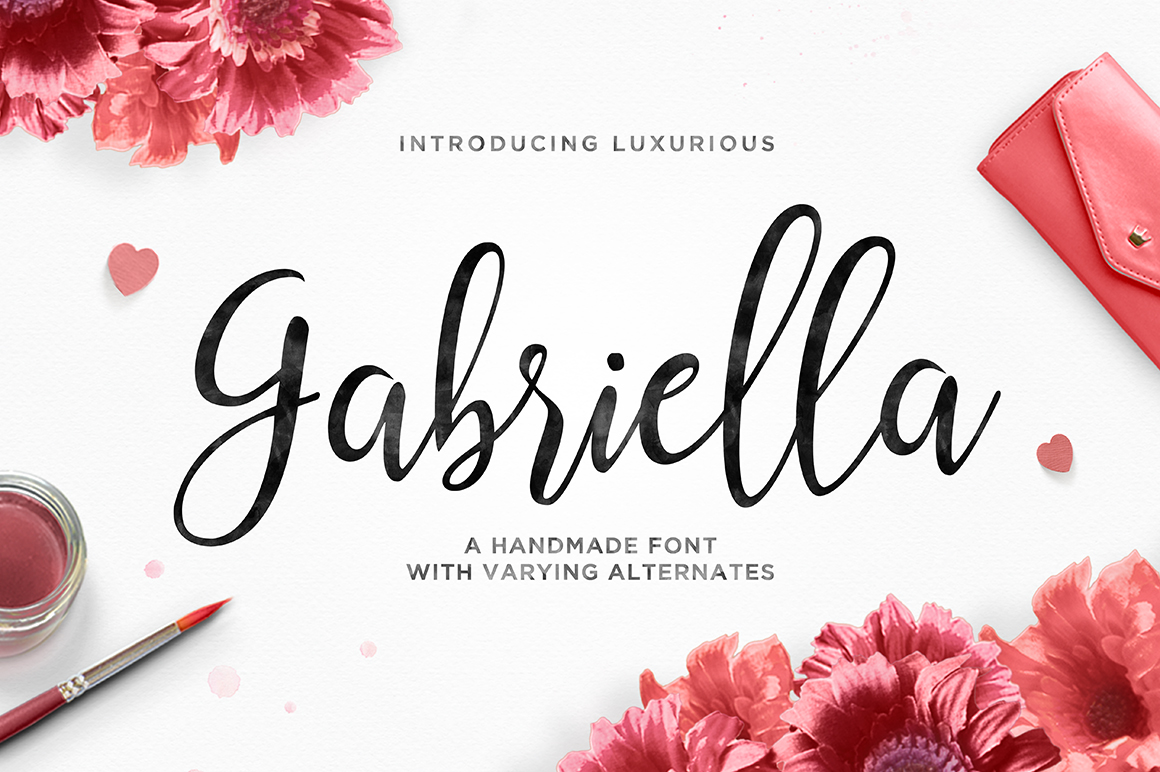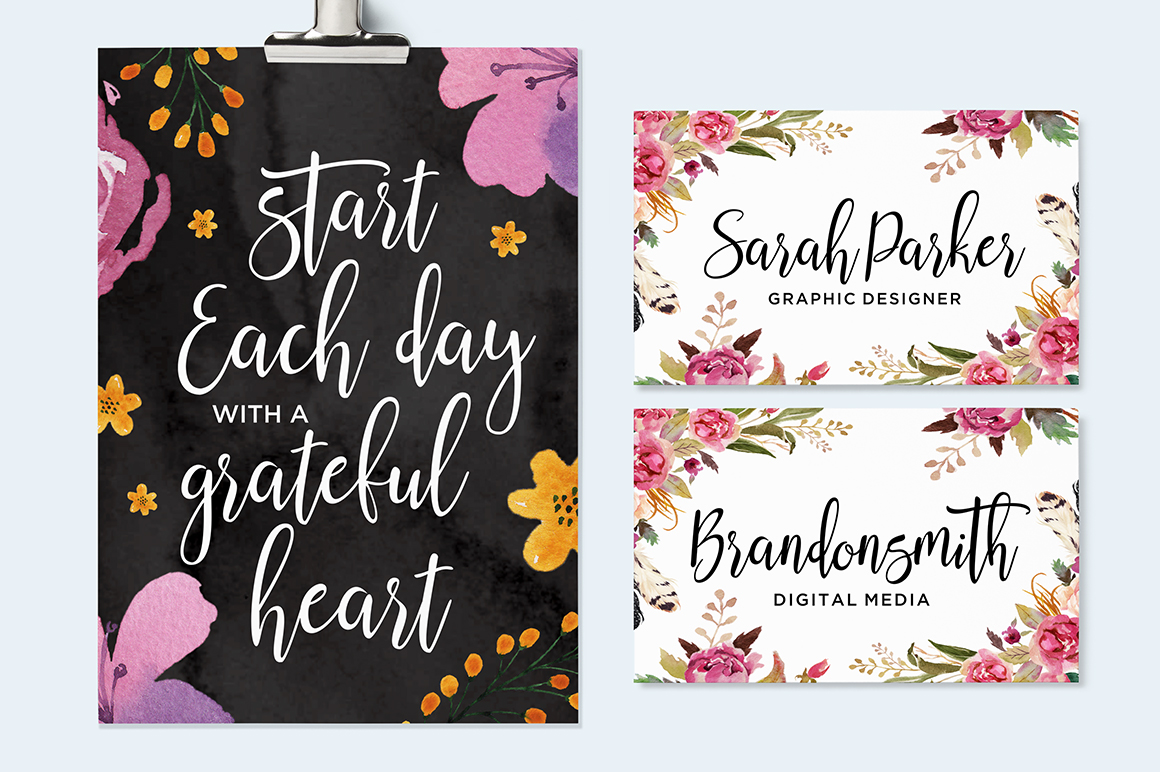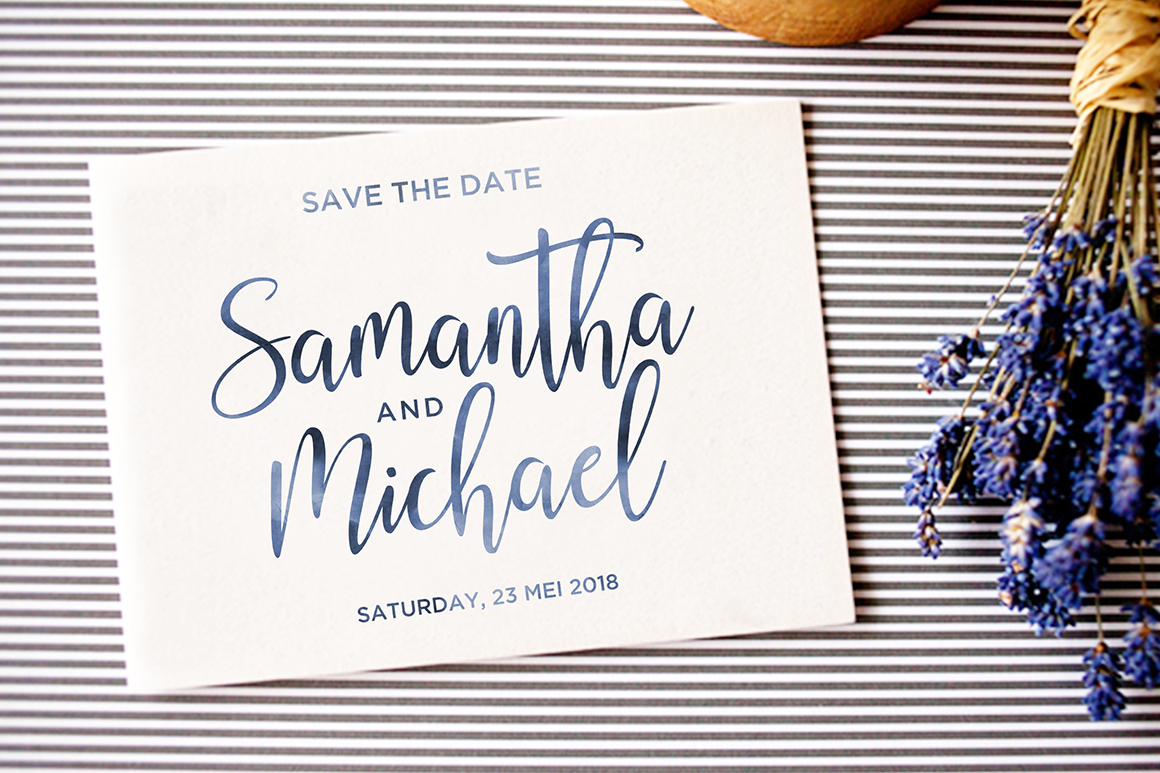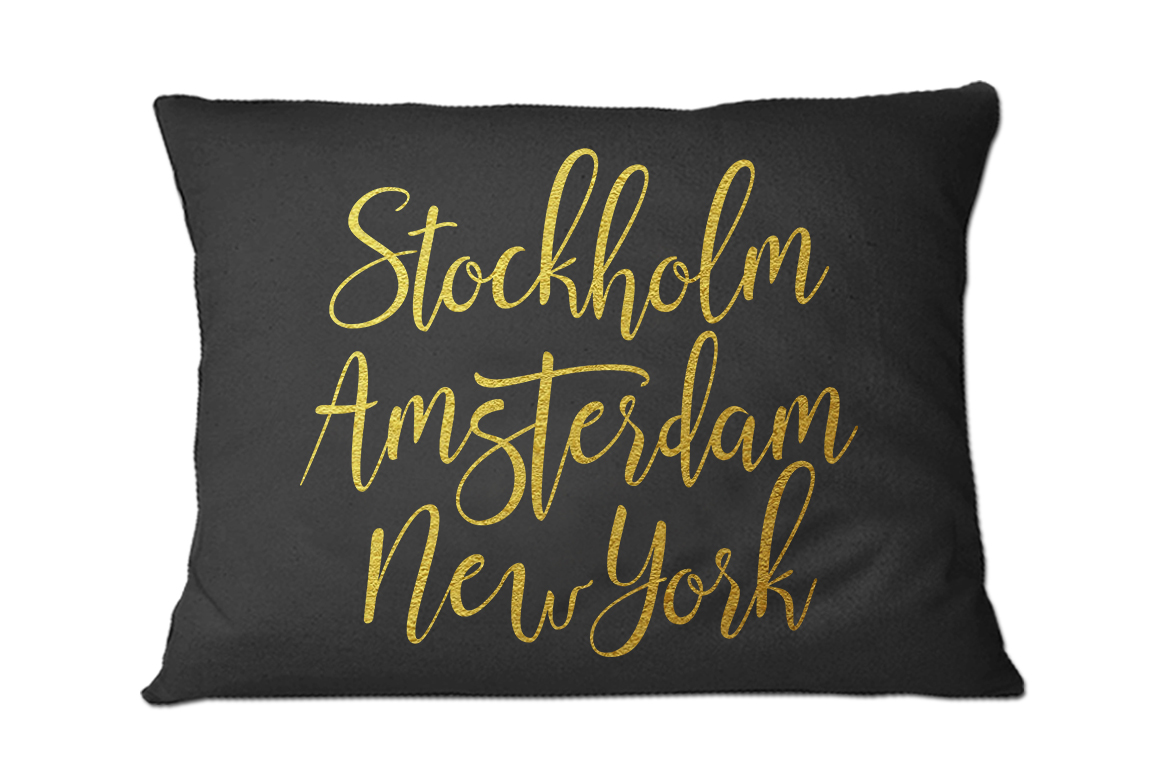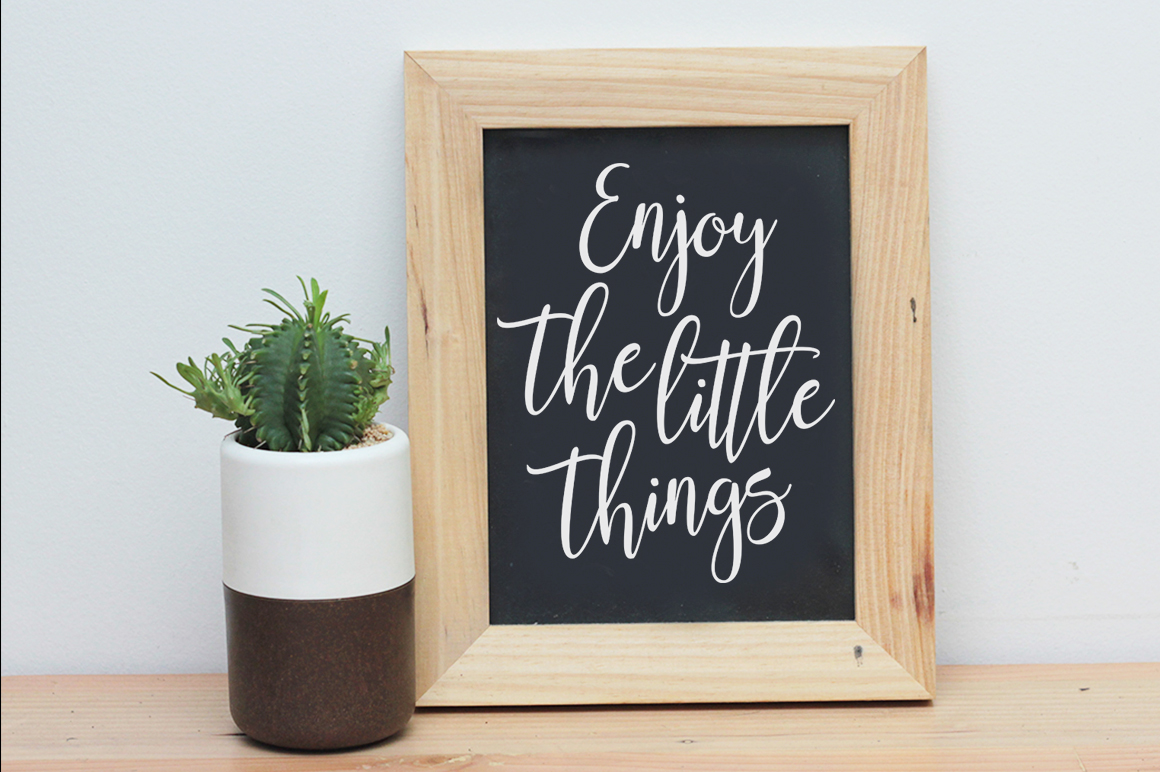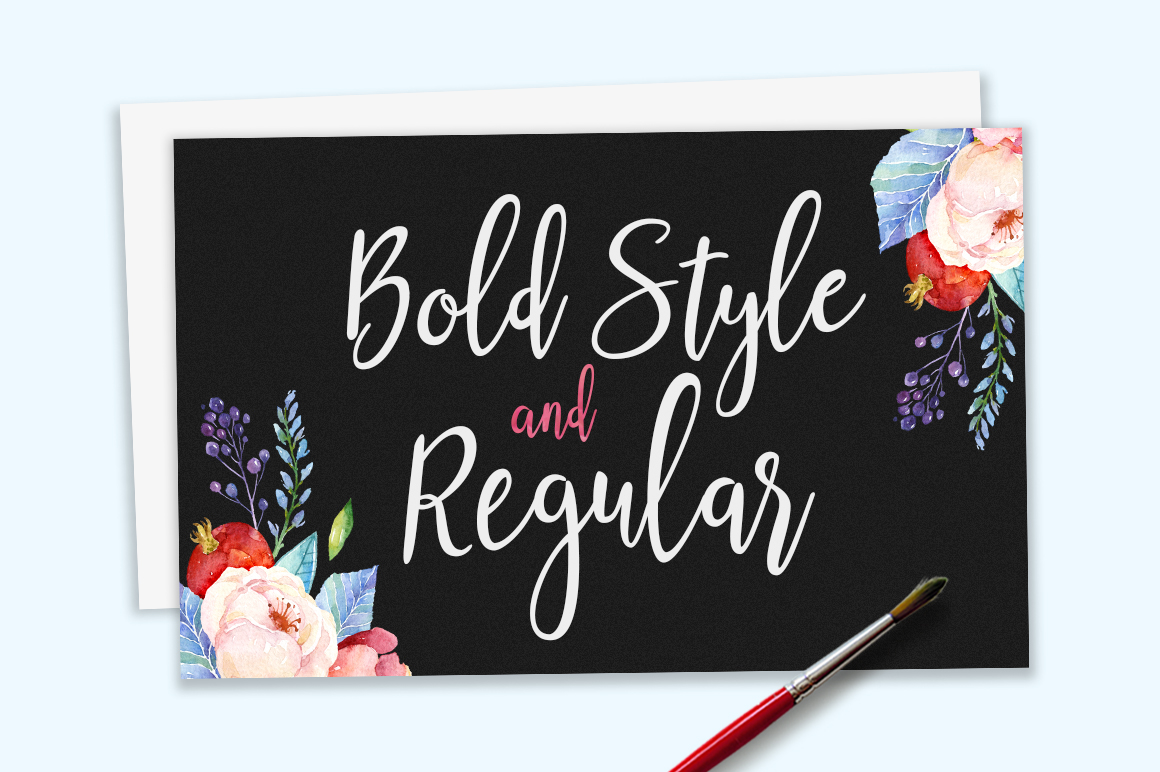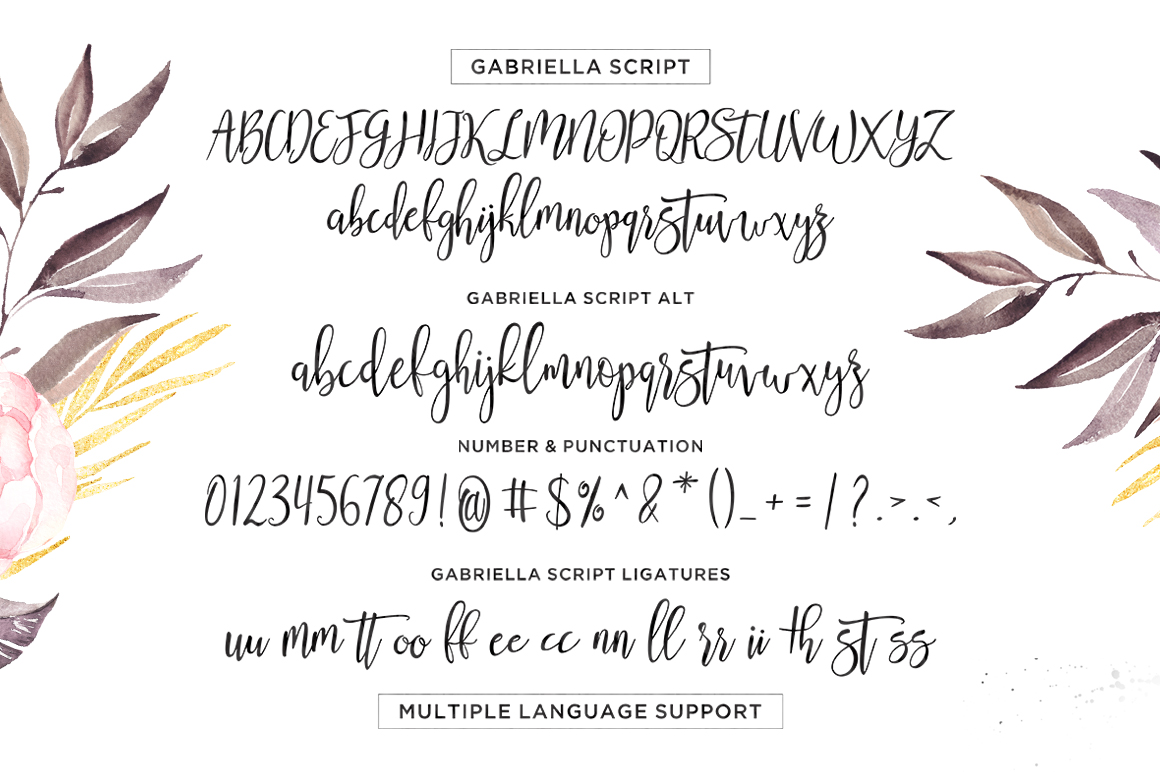
Gabriella Font
Gabriella Script is a hand-brushed modern calligraphy script font, created with both pen & brush.
Everything in this font was carefully painted on paper, scanned and digitally optimized.